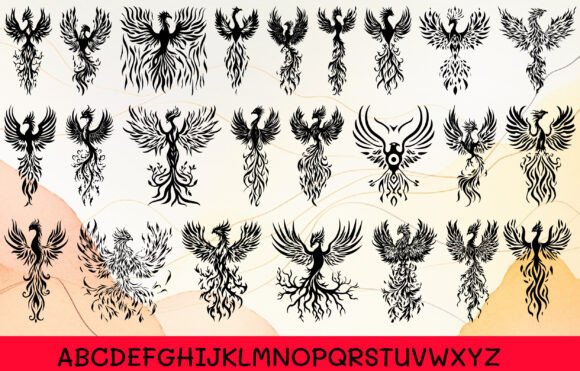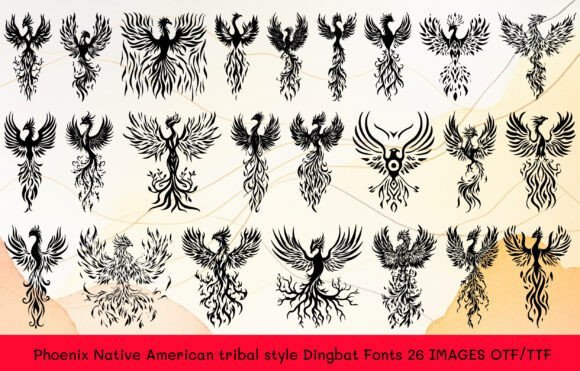
Introduction to Phoenix Native American Tribal Font
Phoenix Native American Tribal Style Dingbats Fonts.
This collection features 26 unique designs inspired by tribal artistry, each representing a letter from A to Z Perfect for creative projects, logos, invitations, and more, these symbols bring bold, cultural elegance to your designs.
Key Features of Phoenix Native American Tribal Font